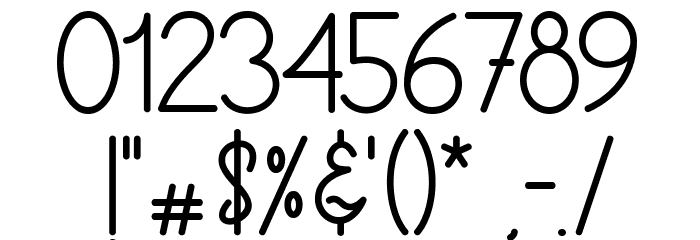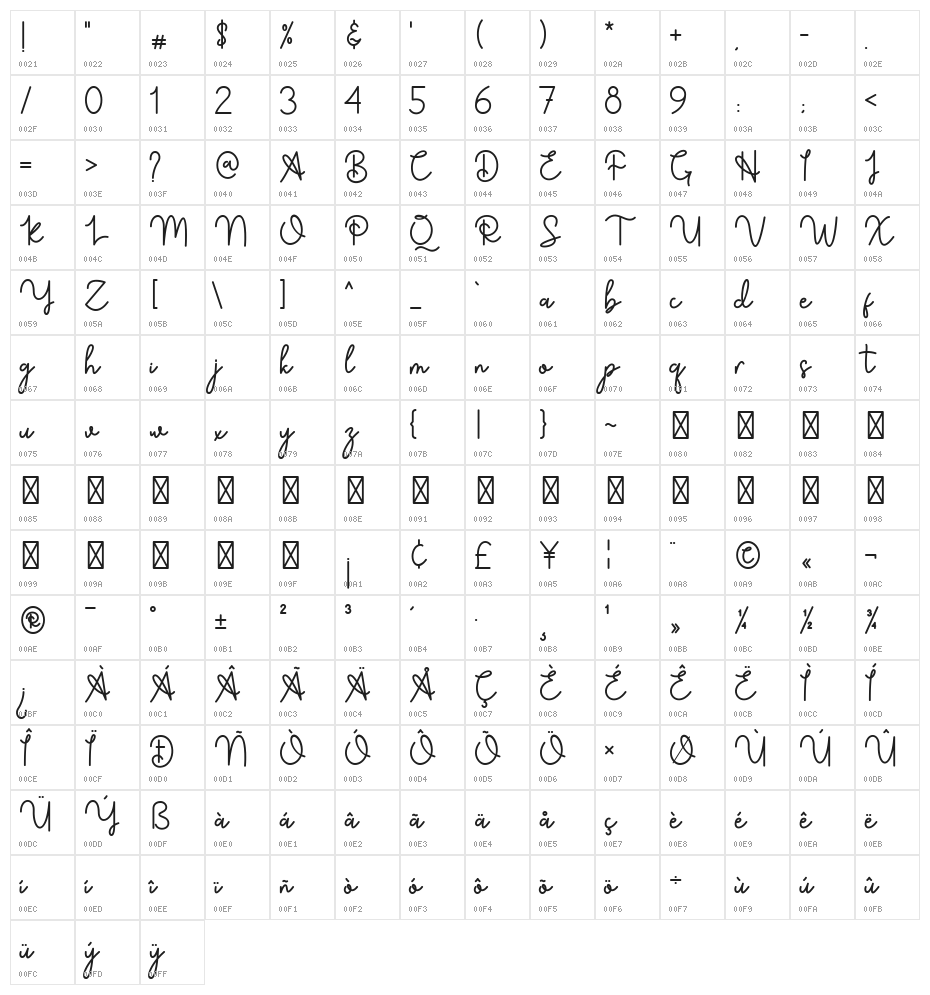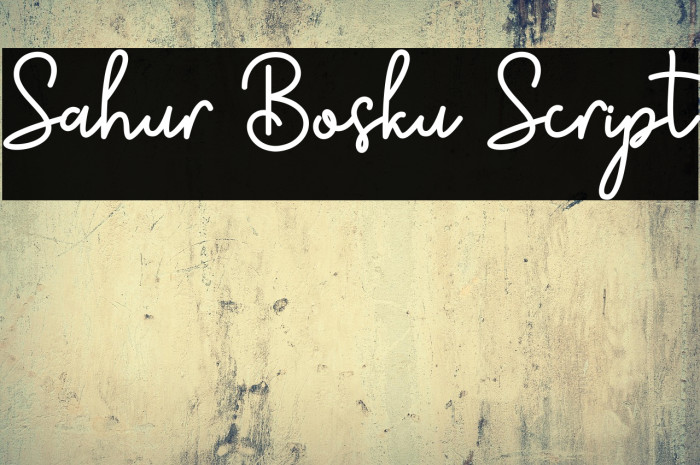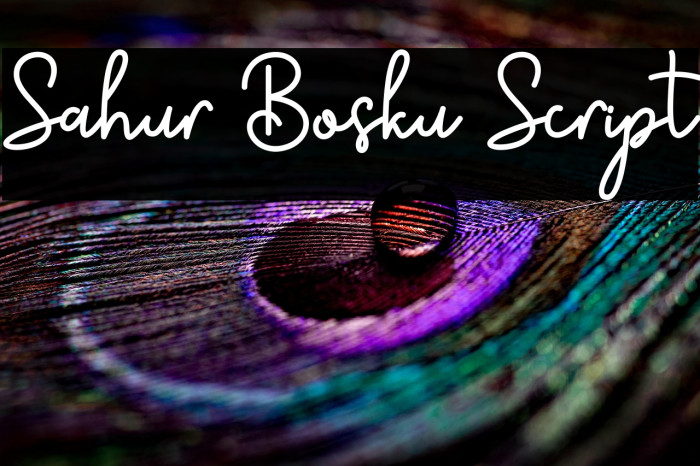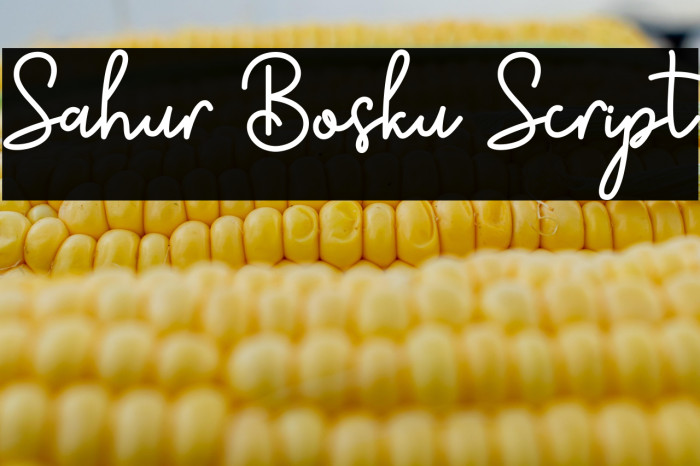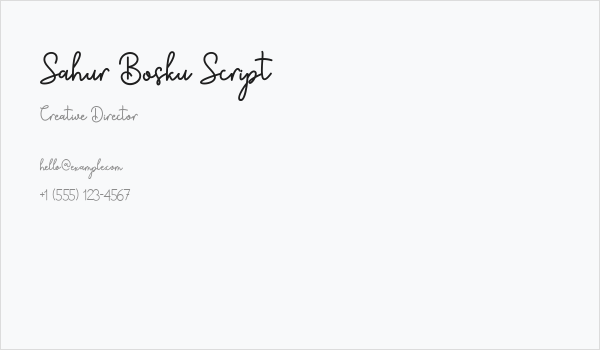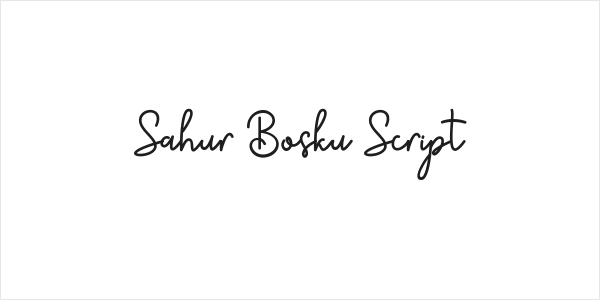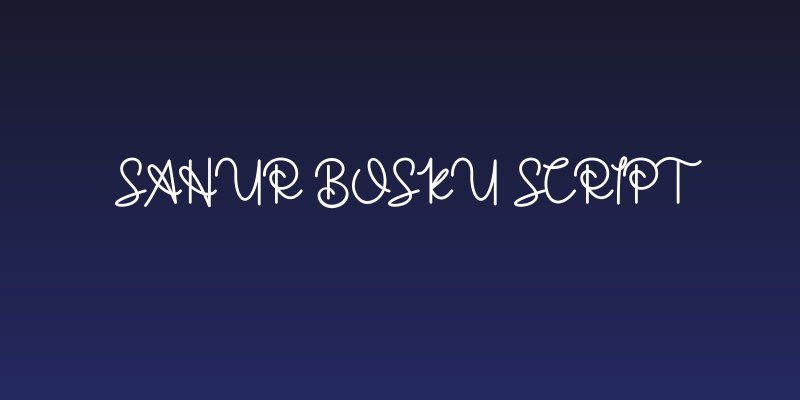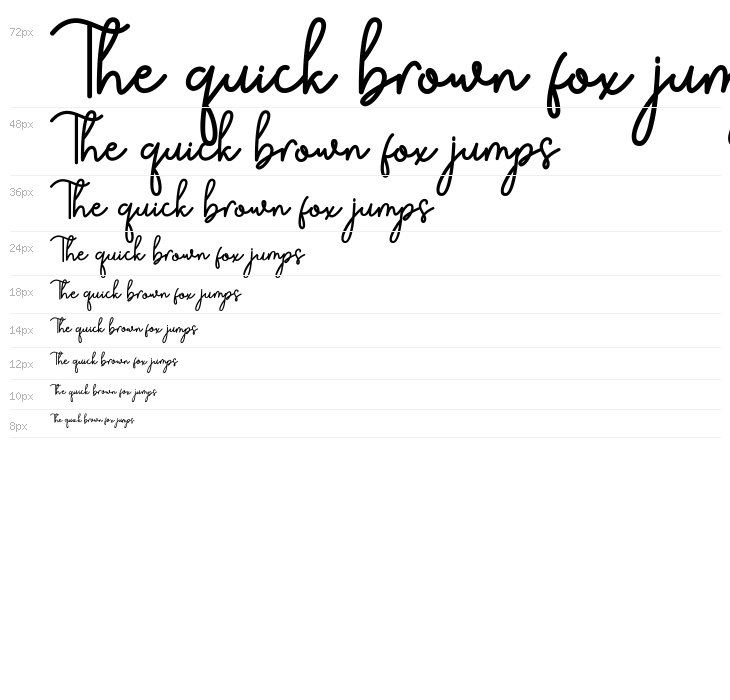
Sahur Bosku Script Font
Sahur Bosku Script Description
This font features a playful and elegant script style with a handwritten appearance. The uppercase letters are characterized by smooth, flowing lines and a consistent stroke width, giving them a graceful and fluid look. The lowercase letters maintain this fluidity, with some letters featuring loops and curls that add to the font's charm. The numerals are clear and legible, complementing the overall style with their simplicity. Special characters are well-integrated, maintaining the font's cohesive design. This font is ideal for projects that require a personal touch, such as invitations, greeting cards, and branding materials.
| Overall Style | Elegant, Playful |
| Proposed Projects | Ideal for invitations, greeting cards, branding, and personal projects. |